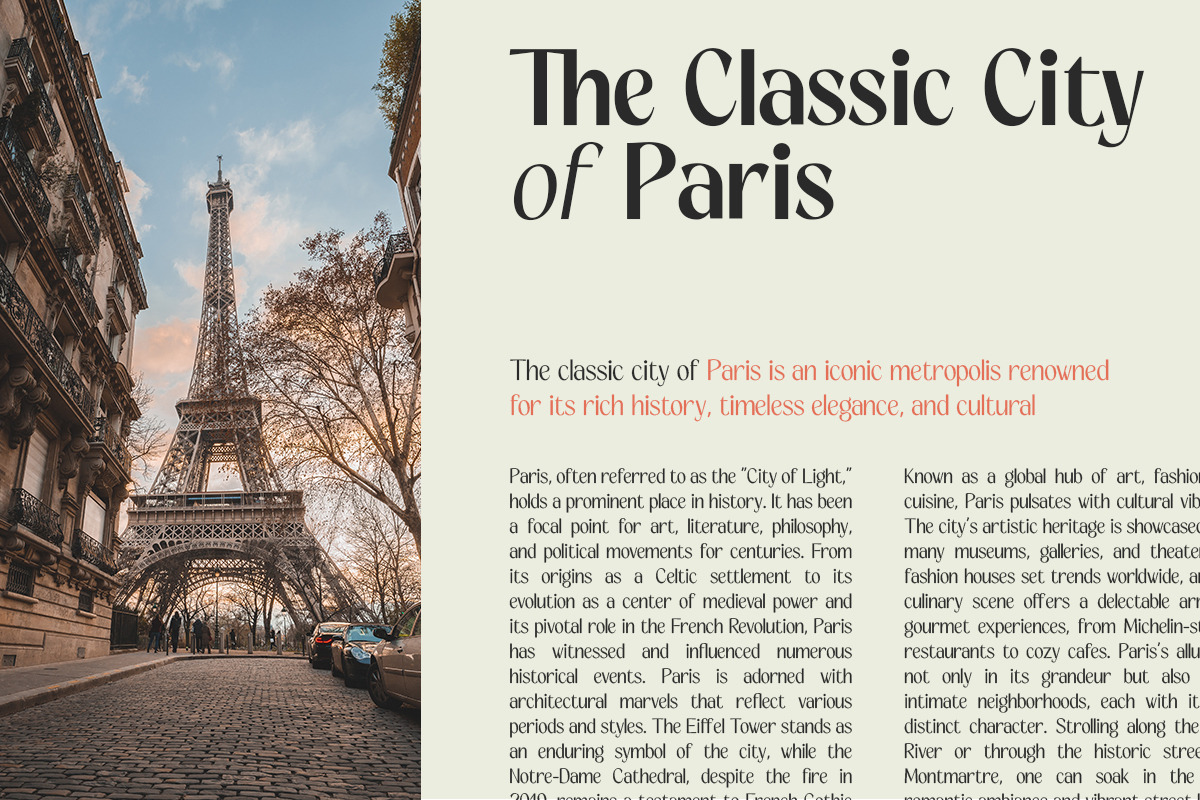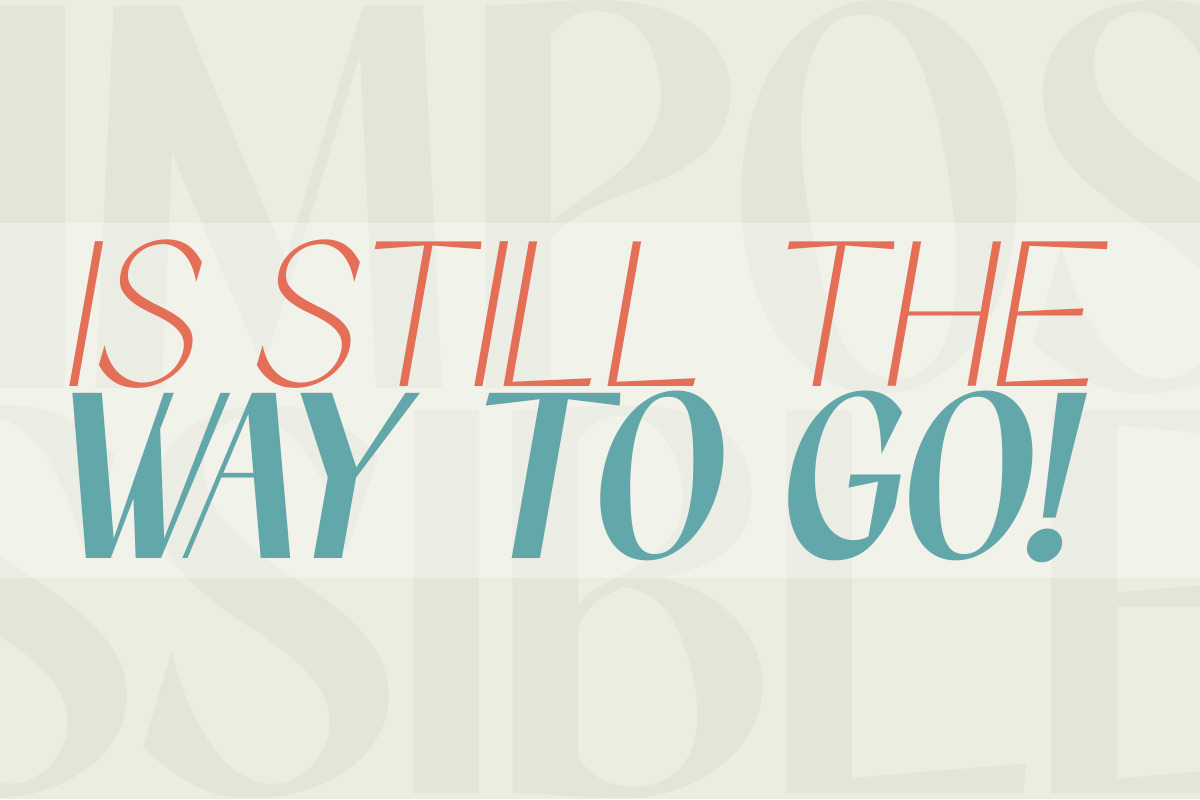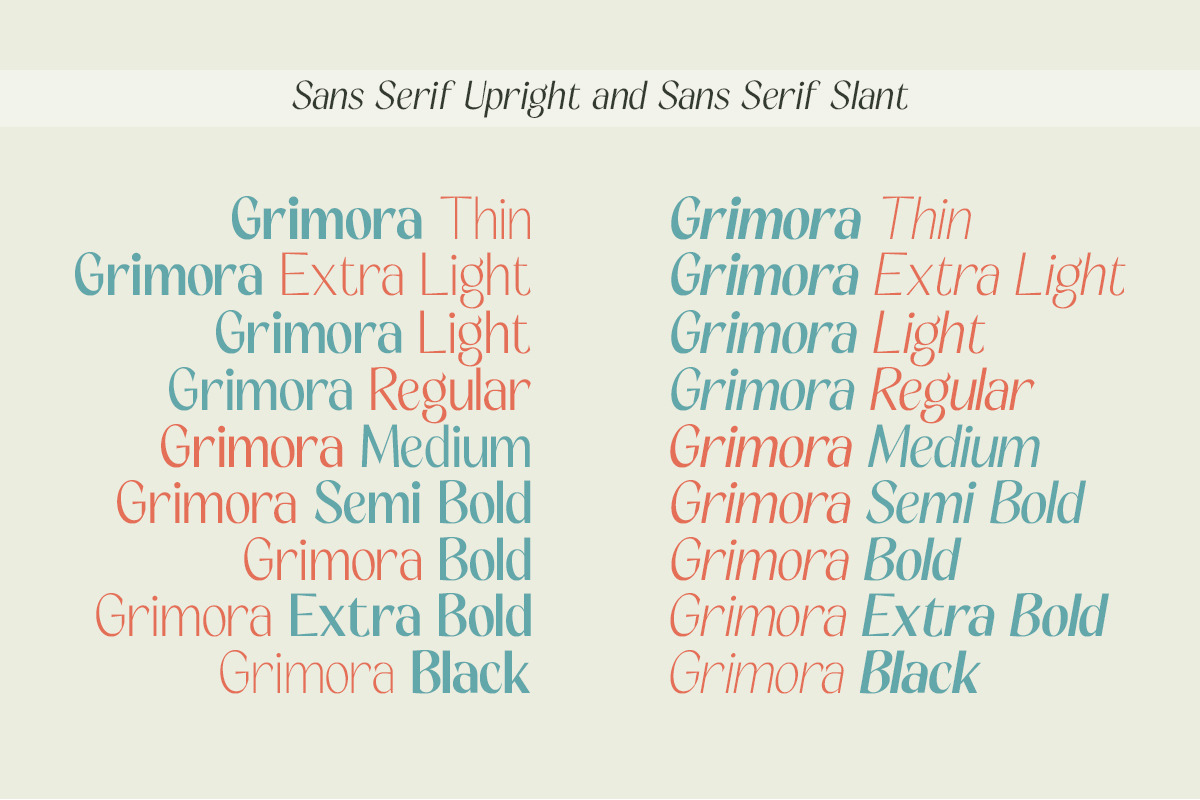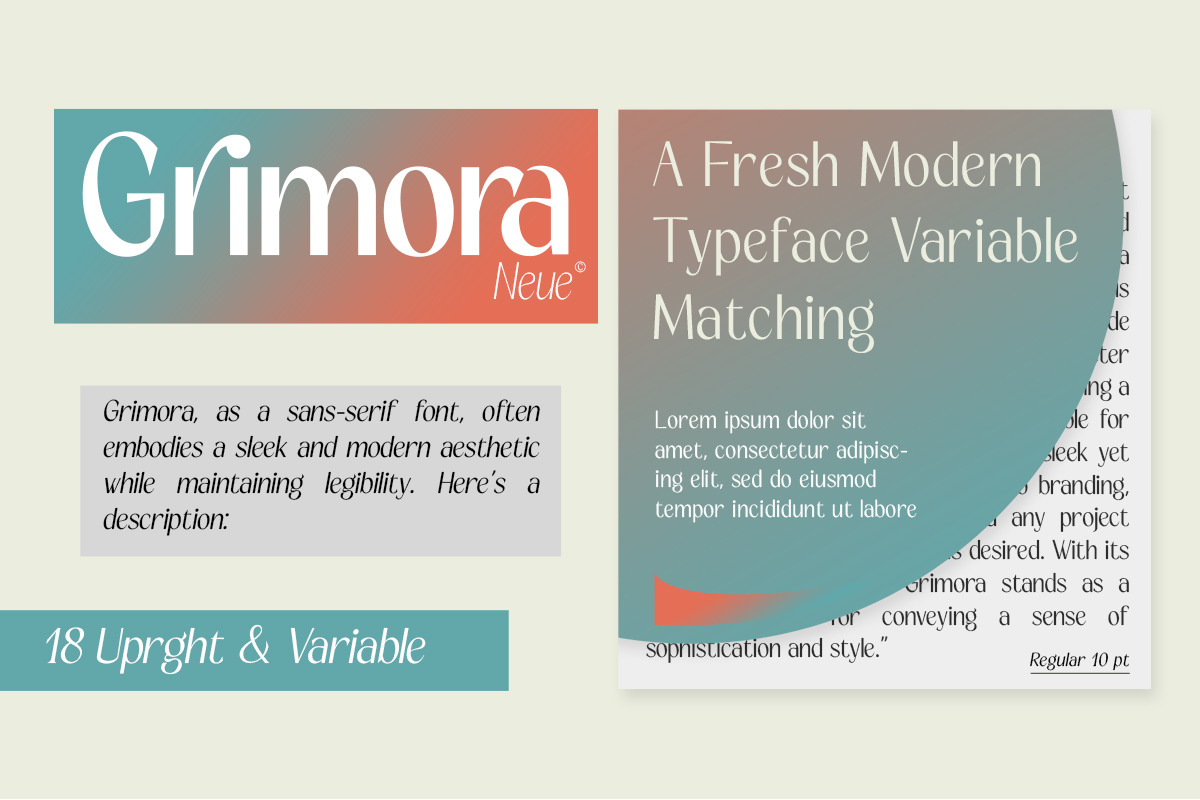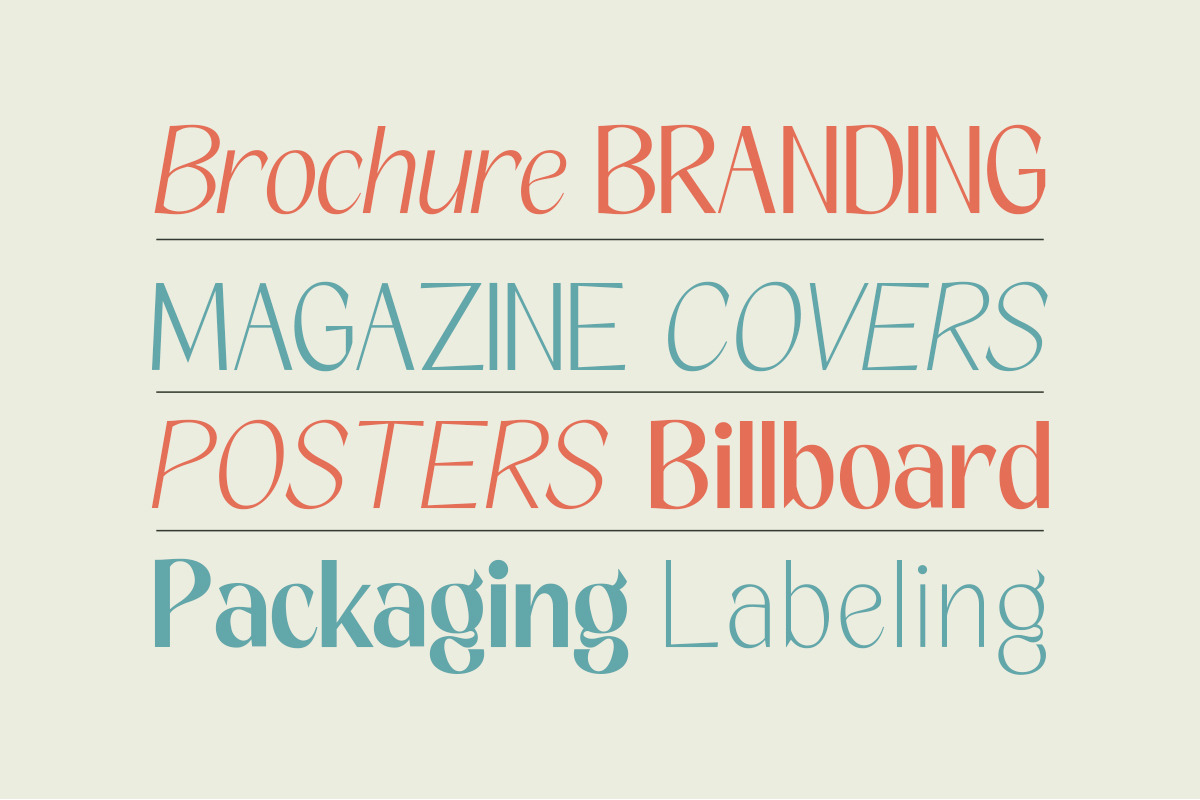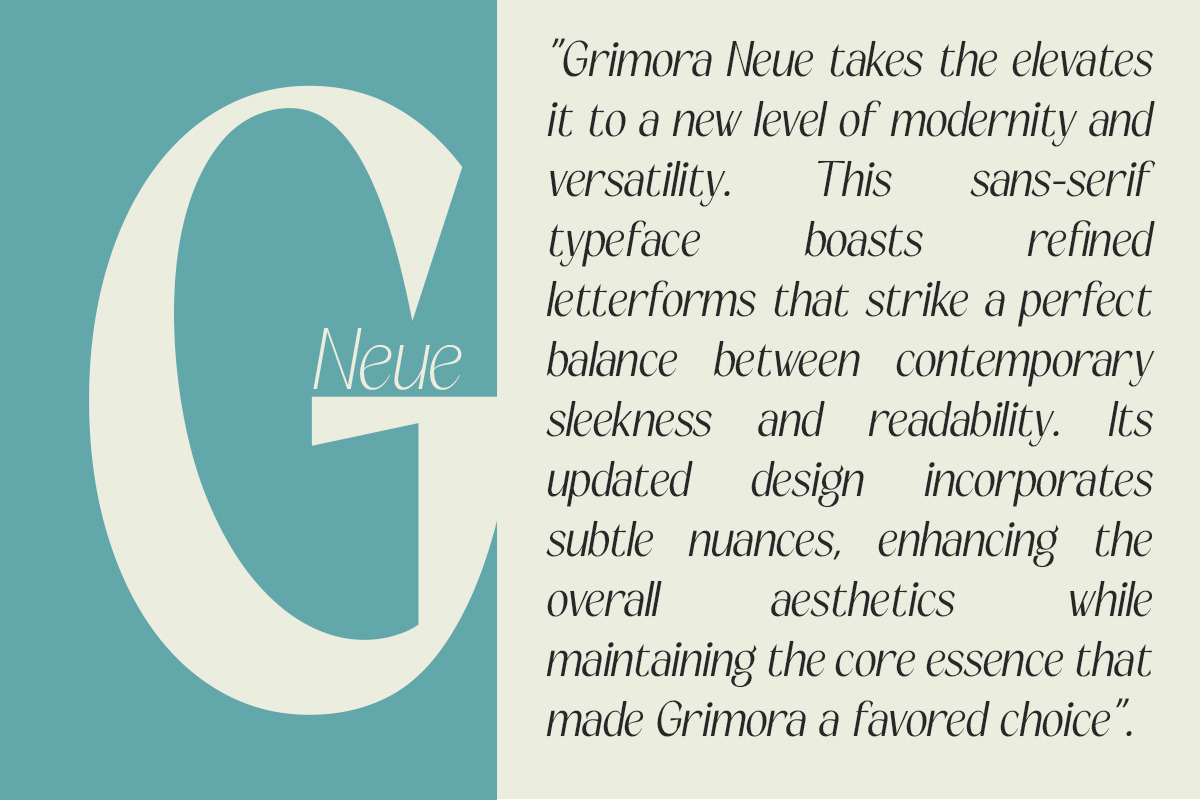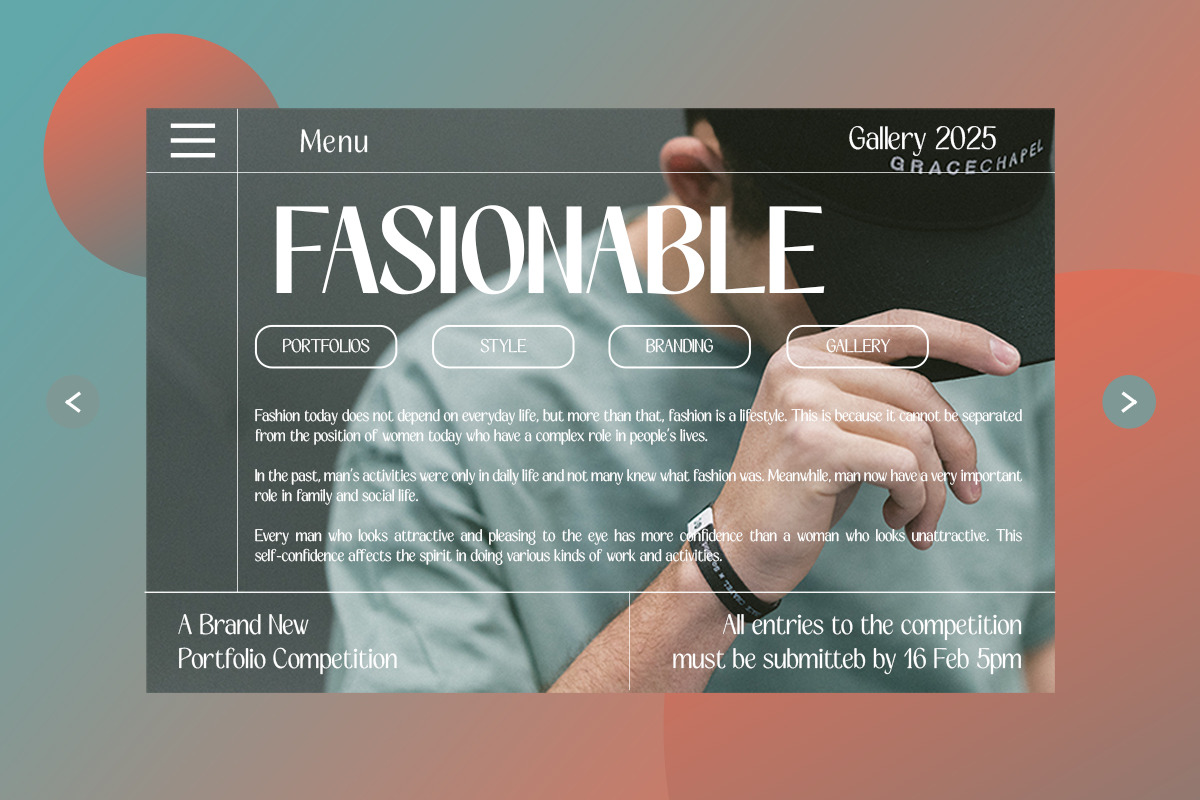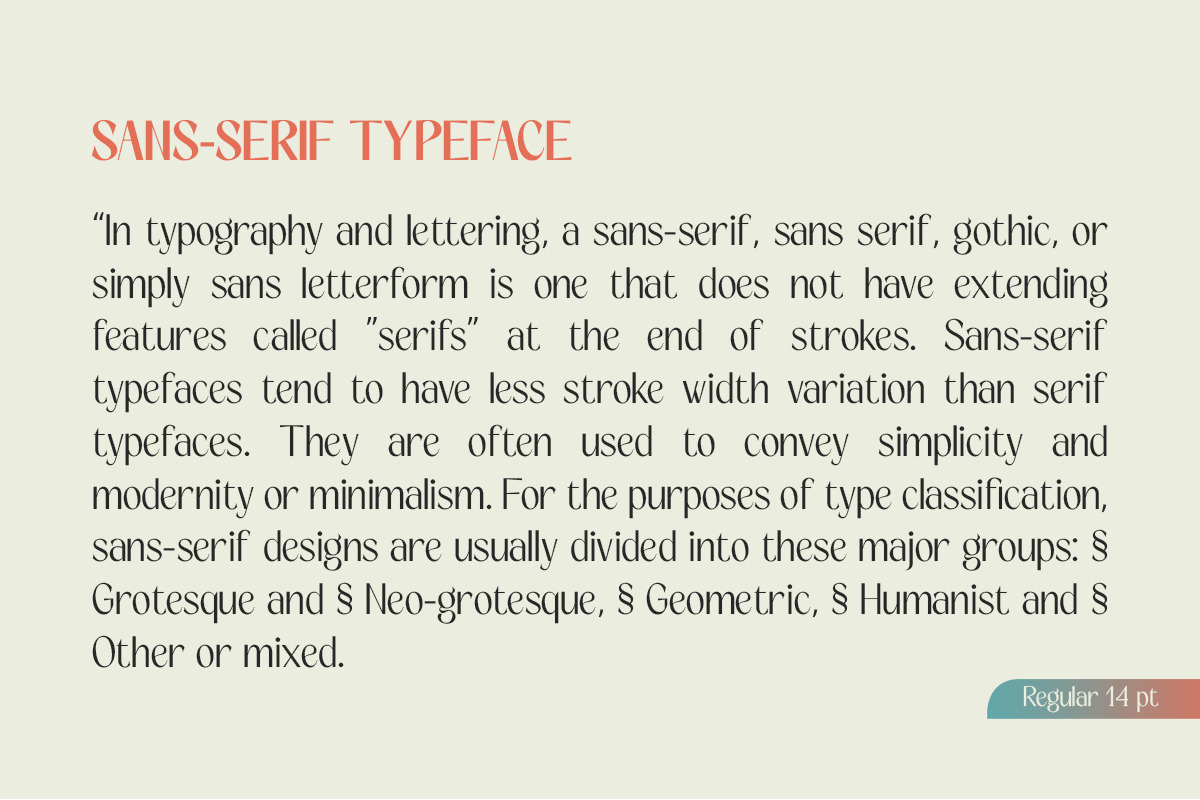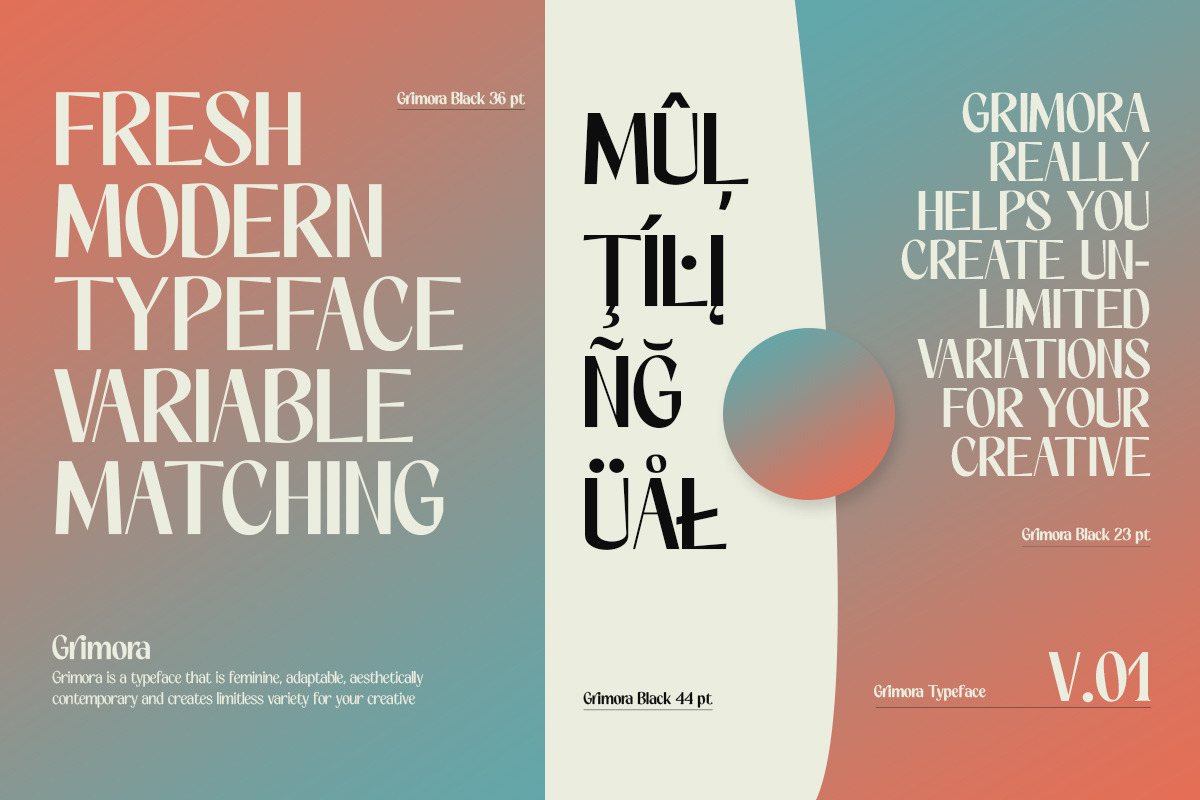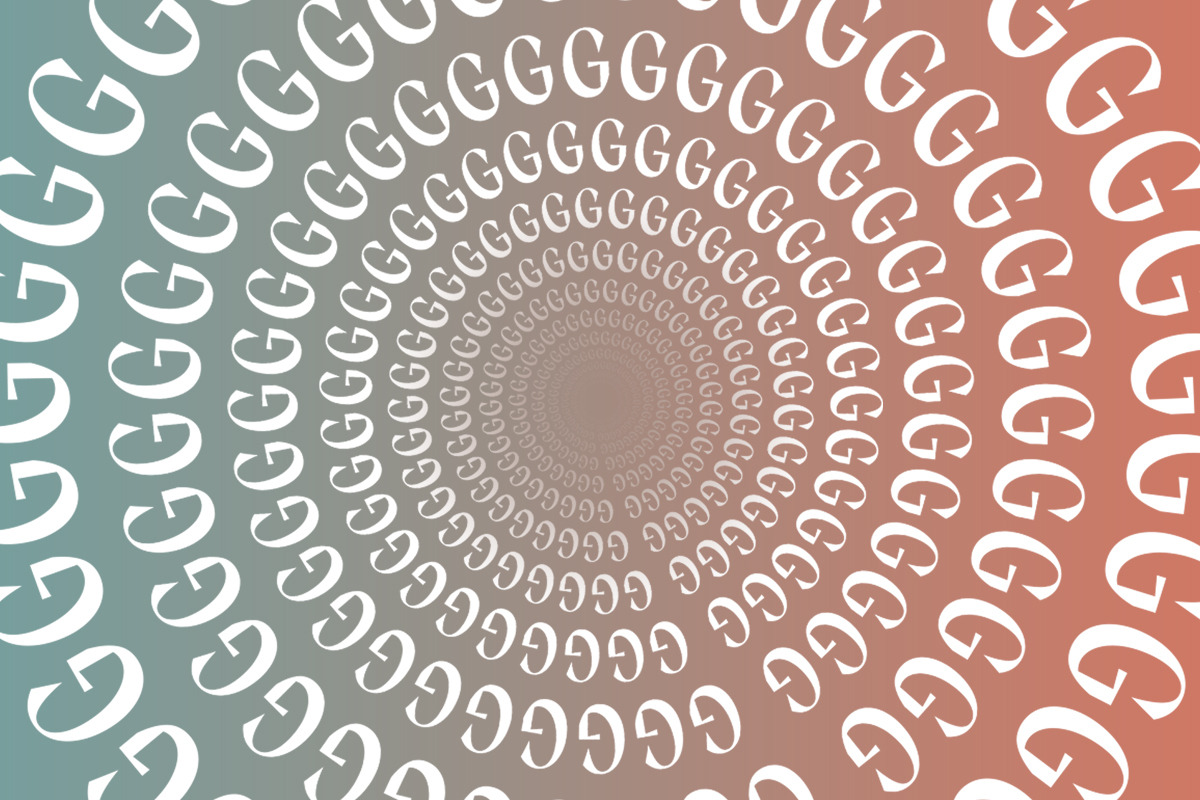
Grimora Neue
50% Off - Pack of 19 styles: $67 Grimora Neue takes the essence of the original Grimora and elevates it to a new level of modernity and versatility. This sans-serif typeface boasts refined letterforms that strike a perfect balance between contemporary sleekness and readability. Its updated design incorporates subtle nuances, enhancing the overall aesthetics while maintaining the core essence that made Grimora a favored choice. With a renewed sense of clarity and purpose, Grimora Neue is crafted for projects seeking a sophisticated yet approachable appearance. Its clean lines, carefully crafted curves, and enhanced legibility make it a go-to option for branding, editorial work, digital interfaces, and beyond. Grimora Neue is a font that embodies adaptability, making it an ideal choice for designers aiming to impart a sense of fresh sophistication to their creations."